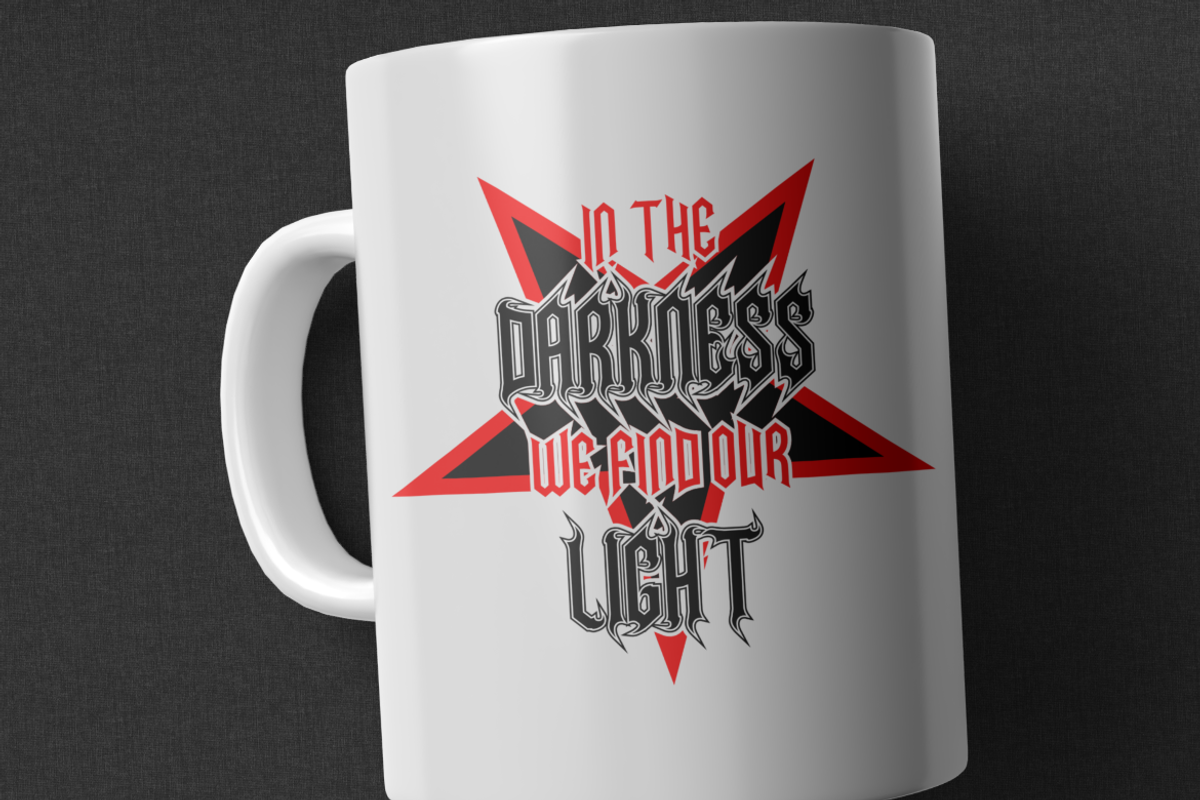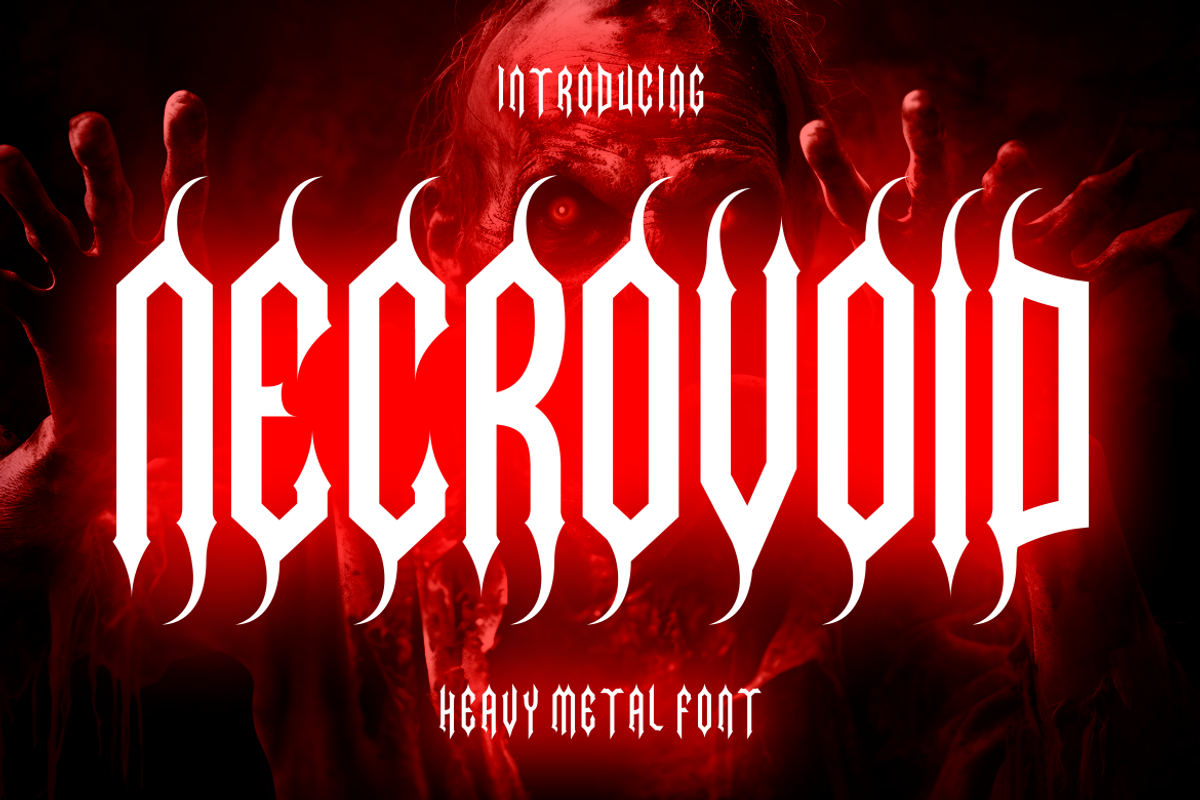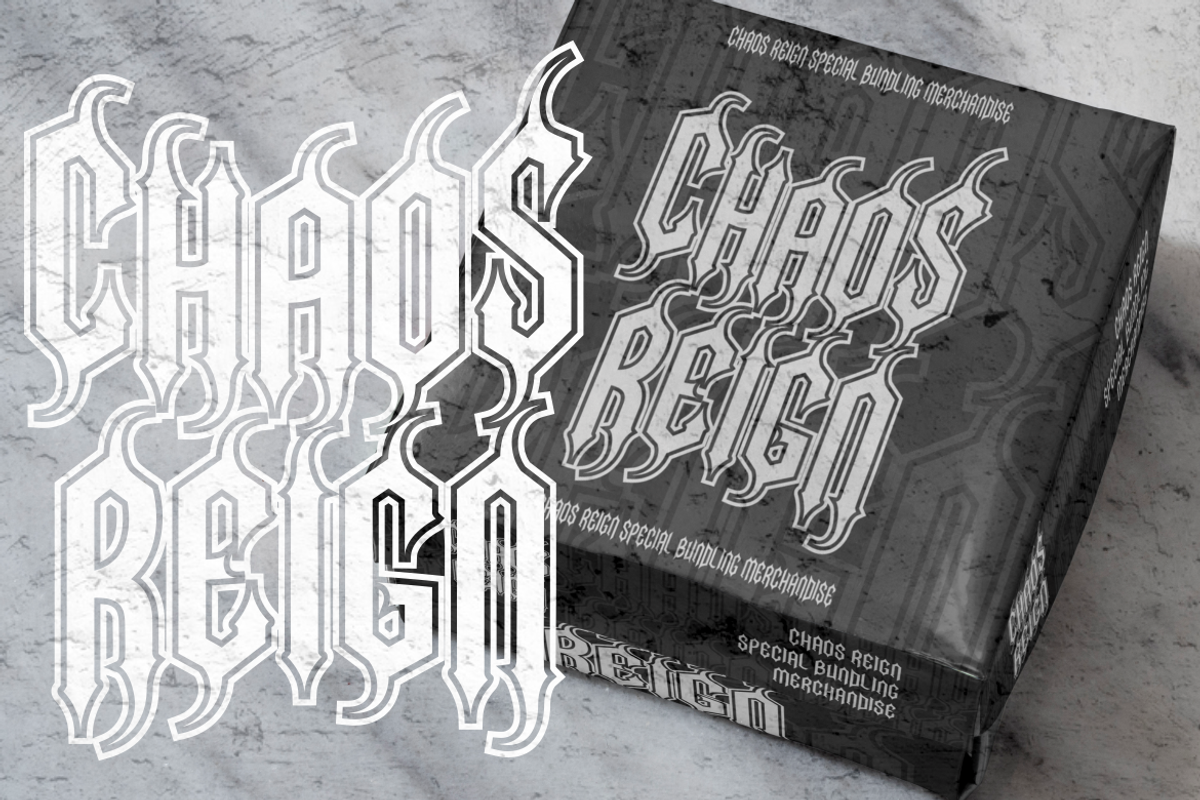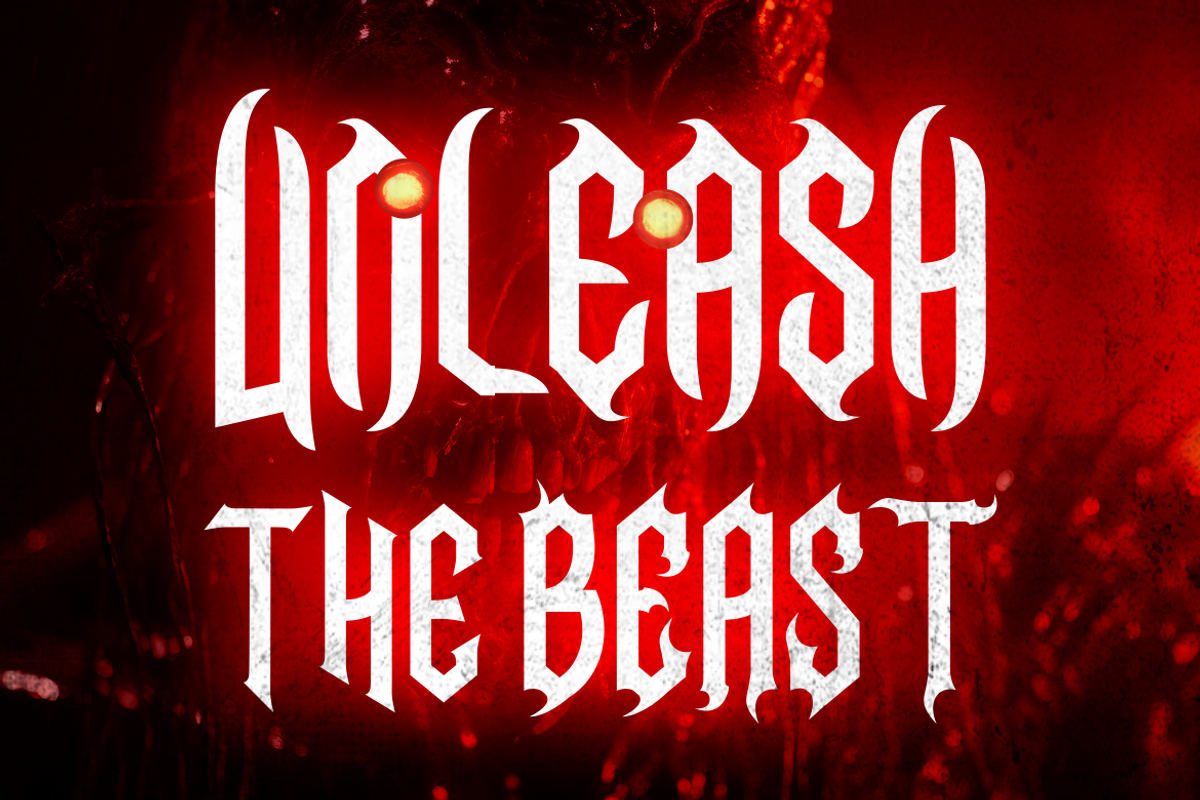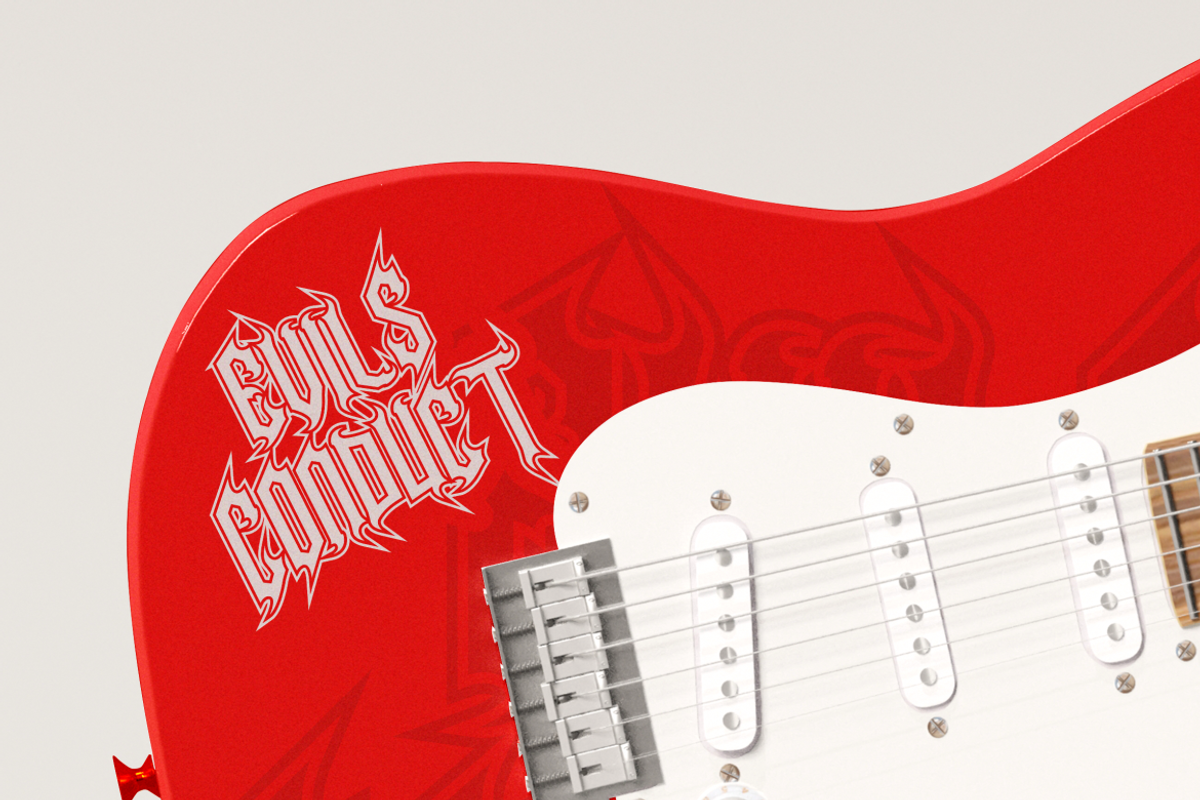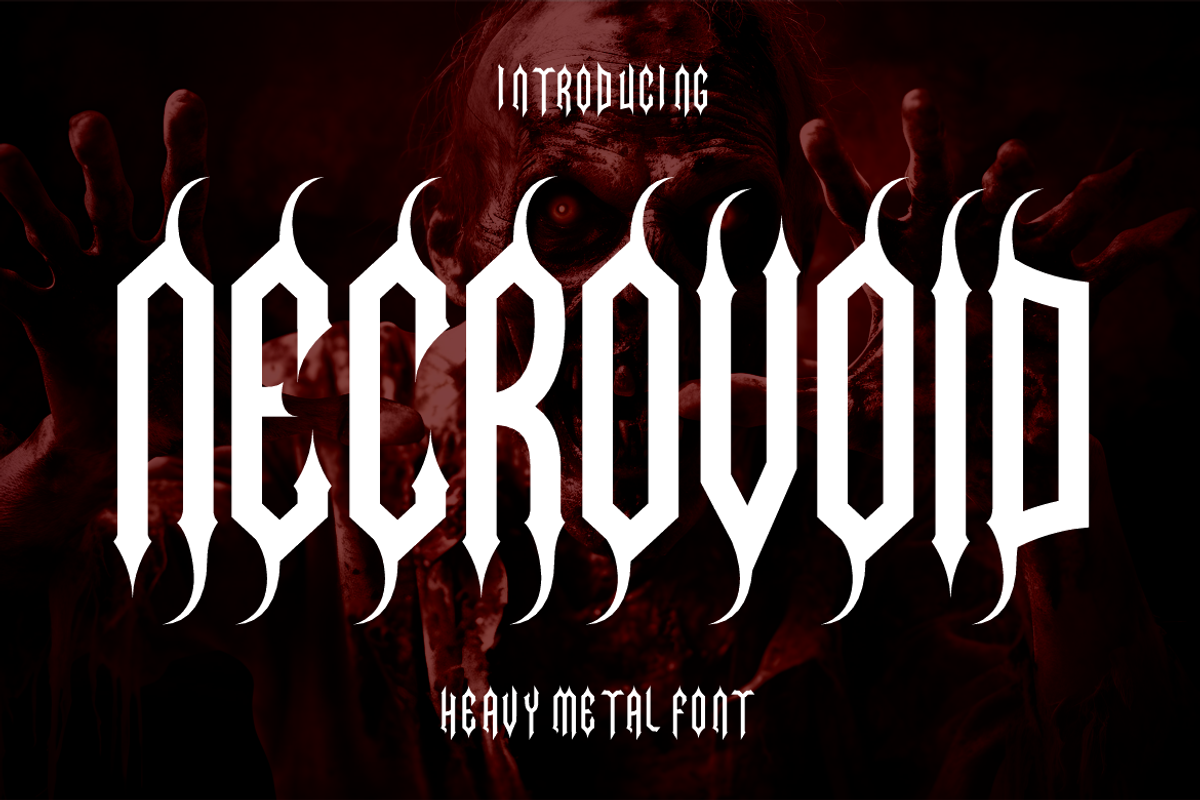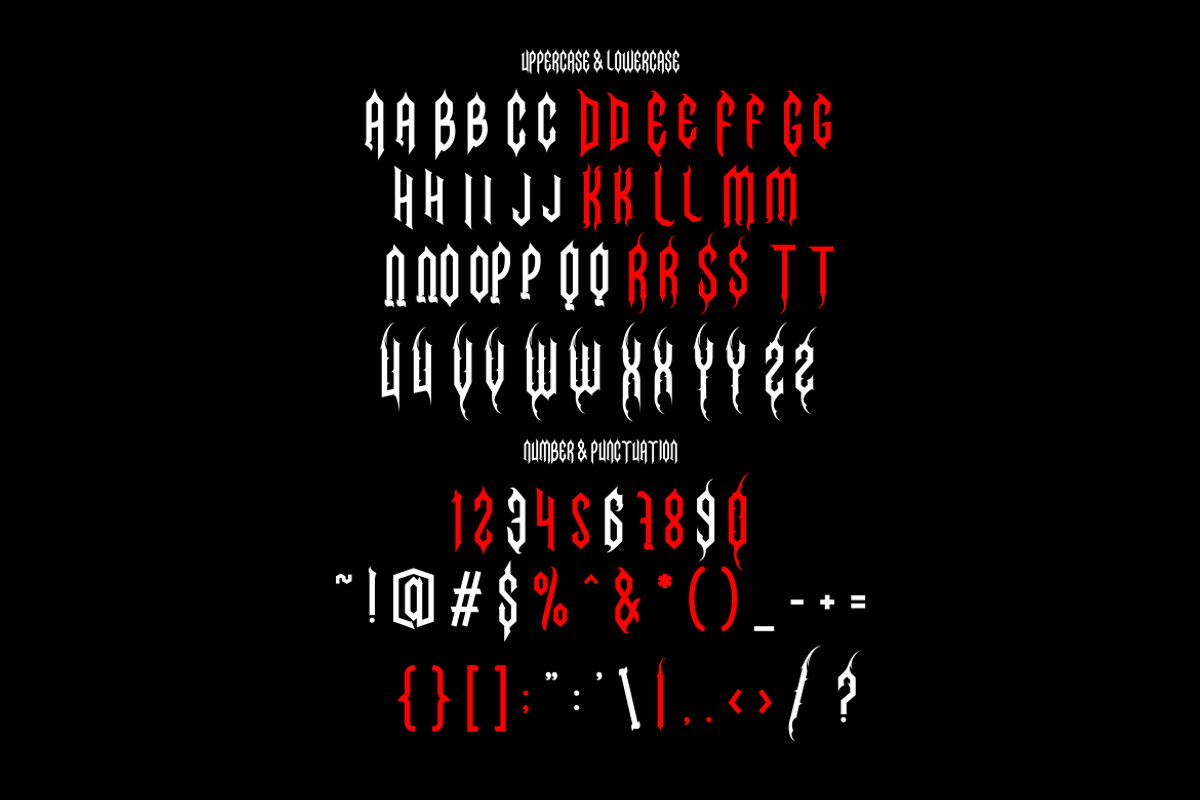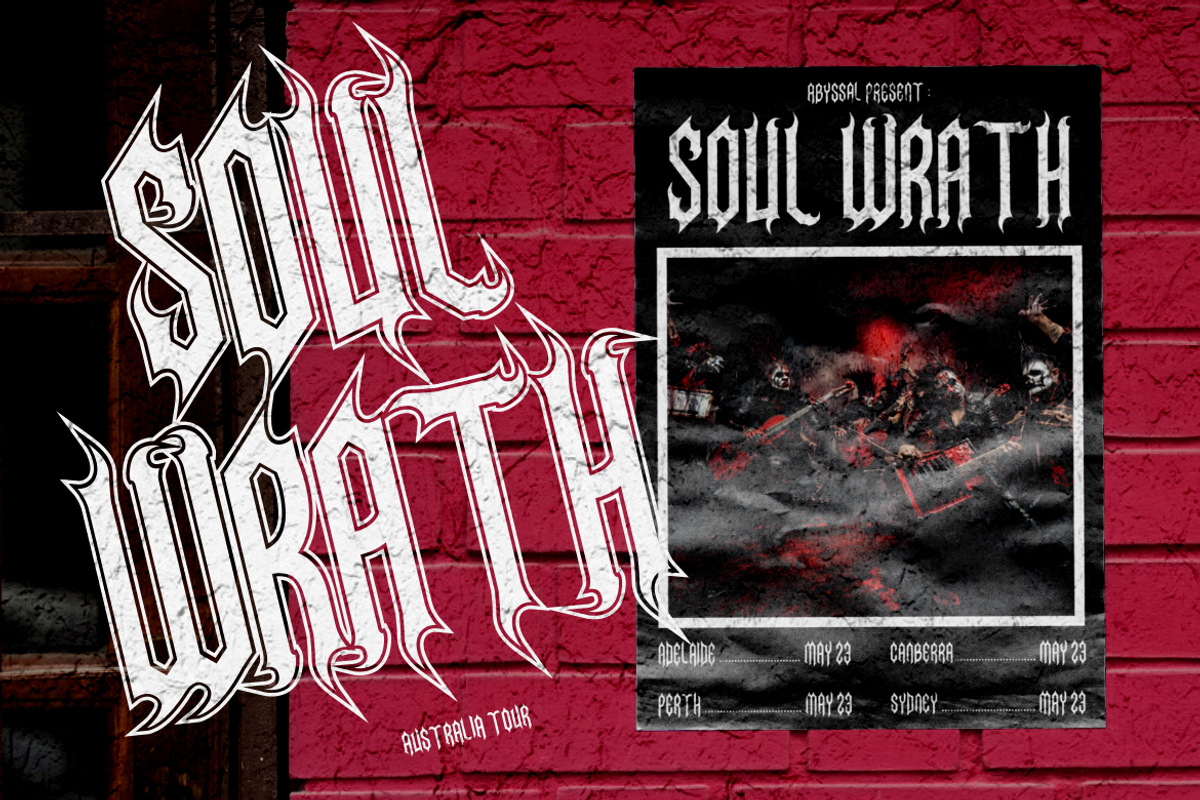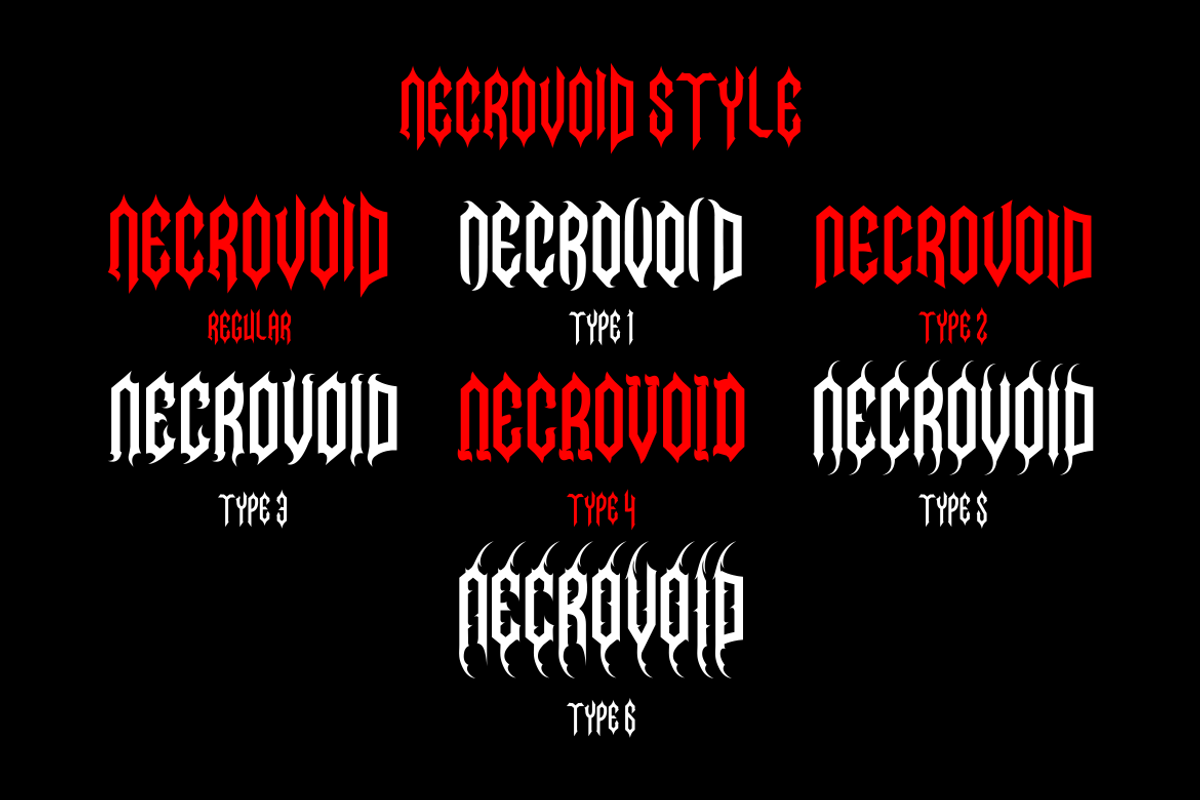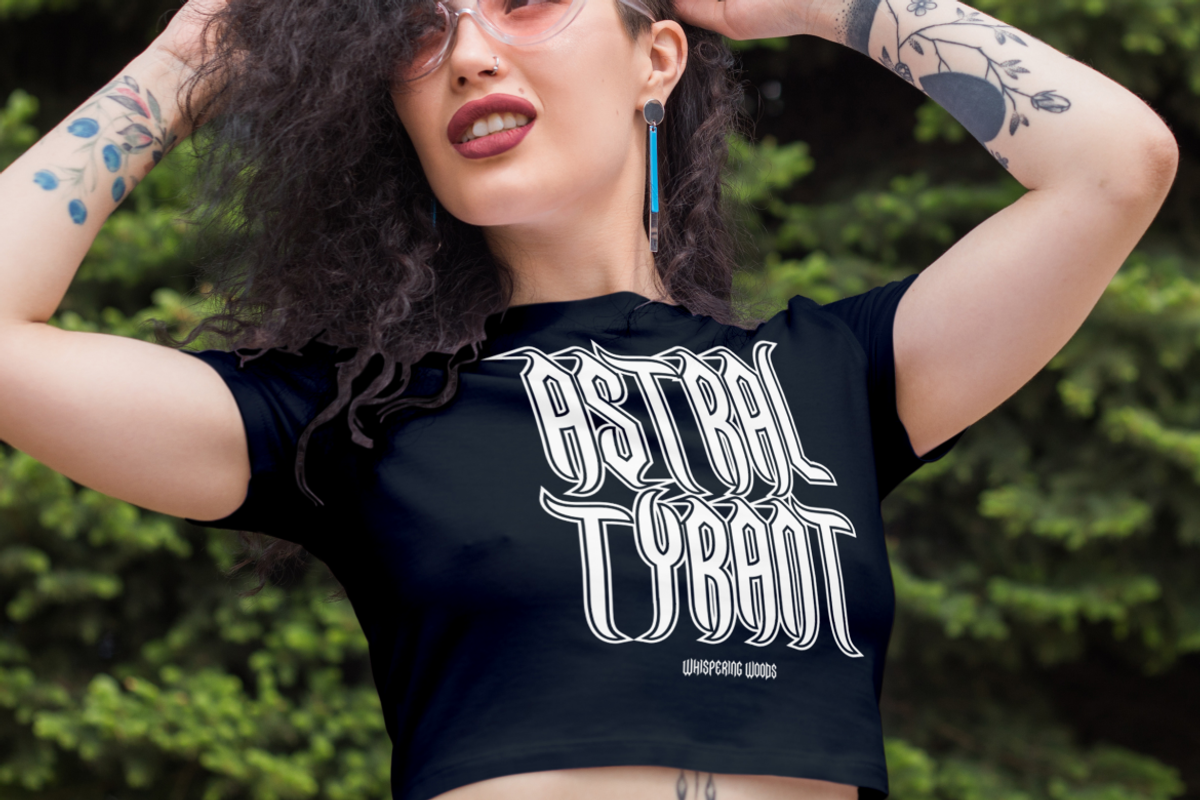
Necrovoid - Heavy Metal Font
Unleash the raw power of typography with Necrovoid - Heavy Metal Font, a display typeface that screams rebellion and strength. With its razor-sharp edges and gothic flair, this font encapsulates the essence of metal music’s dark allure. Each letterform is crafted to pierce through the mundane, making it an ideal choice for those looking to make a bold statement. Whether it’s branding for bands or crafting eye-catching posters, Necrovoid delivers an unmistakable presence that refuses to be ignored.
Necrovoid isn’t just another typeface; it’s a statement piece for any designer’s toolkit. Its versatility extends beyond music-related designs; imagine this font transforming logos into iconic symbols or elevating packaging designs to art pieces. It’s perfect for titles that need to stand out – from business ventures with an edge to children’s books seeking characterful typography. Dive into the depths of Necrovoid where each stroke brings your creative vision closer to reality.